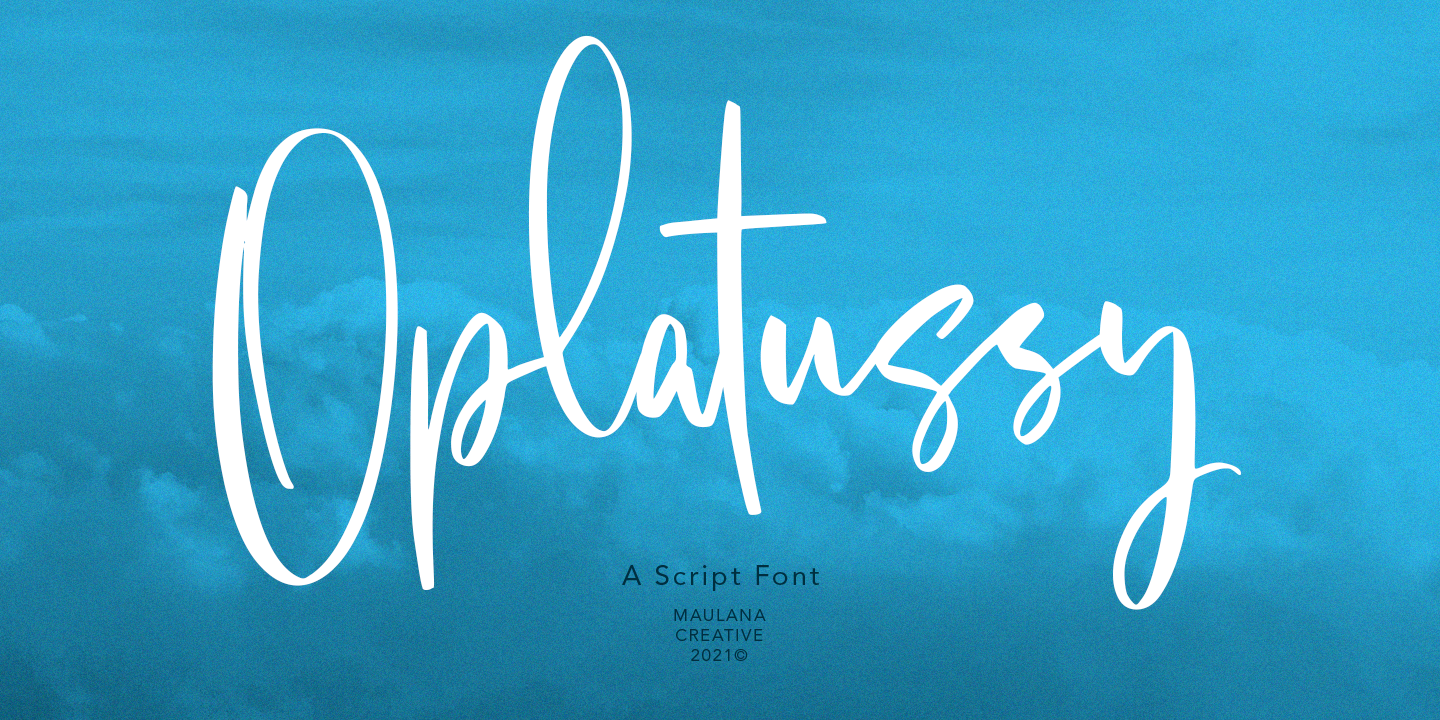
Oplatussy Font is perfect for artisan bakery branding, European pastry shop communications, traditional wafer manufacturing packaging, gourmet confectionery signage, old-world delicatessen materials, heritage food festival promotions, classic European café marketing, and authentic continental cuisine restaurant designs. This distinctive typeface excels in applications where European culinary tradition, artisanal craftsmanship, and authentic continental heritage are essential for connecting with audiences who appreciate traditional European baking methods and the time-honored recipes of continental pastry excellence.
What makes Oplatussy Font so exciting is its authentic embodiment of European pastry tradition and continental baking heritage that perfectly captures the essence of traditional wafer-making and the artisanal craftsmanship of old-world European confectionery. The font features elegant, traditional letterforms with continental characteristics that evoke handwritten European recipe cards and vintage bakery signage. Its heritage character conveys authenticity, tradition, and artisanal quality - essential qualities for brands serving European food enthusiasts, traditional baking communities, and audiences who appreciate continental culinary heritage, authentic European recipes, and the artisanal excellence of traditional pastry-making traditions.
The Oplatussy Font family includes multiple traditional weights and European-inspired variations that enhance its continental appeal. Some versions feature subtle texture elements that simulate flour dusting and traditional baking surfaces, while others provide refined variants that maintain the font's heritage character with enhanced readability for professional European food applications and commercial traditional bakery communications.
Whether you're creating branding for European bakeries, designing materials for traditional food services, or developing marketing campaigns for continental culinary experiences, Oplatussy Font Free Download provides the authentic European character your project requires. The font's traditional appeal makes it particularly effective for brands targeting culinary enthusiasts and audiences who appreciate European baking heritage, artisanal food traditions, and the time-honored excellence of continental pastry craftsmanship.
Bake with European tradition using Oplatussy Font and layer authentic continental charm into your brand communications with typography that celebrates the artisanal heritage of European pastry excellence.